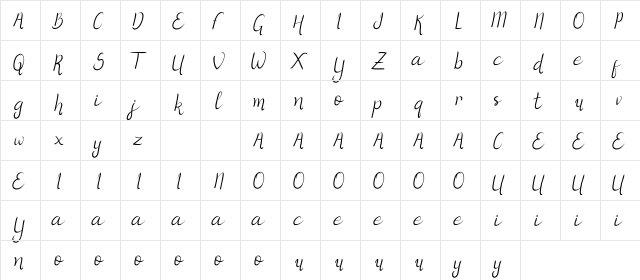
Herist DEMO Italic
Design Context for Herist DEMO Typeface
Herist DEMO is a composed and adaptable typeface that performs quietly and consistently across a wide range of design contexts. The dynamic lean of this cut emphasises speed and emphasis in any layout.
Pro Tip: Try Herist DEMO for annotation and caption copy alongside an upright companion — the contrast in angle creates a dynamic but ordered typographic system.